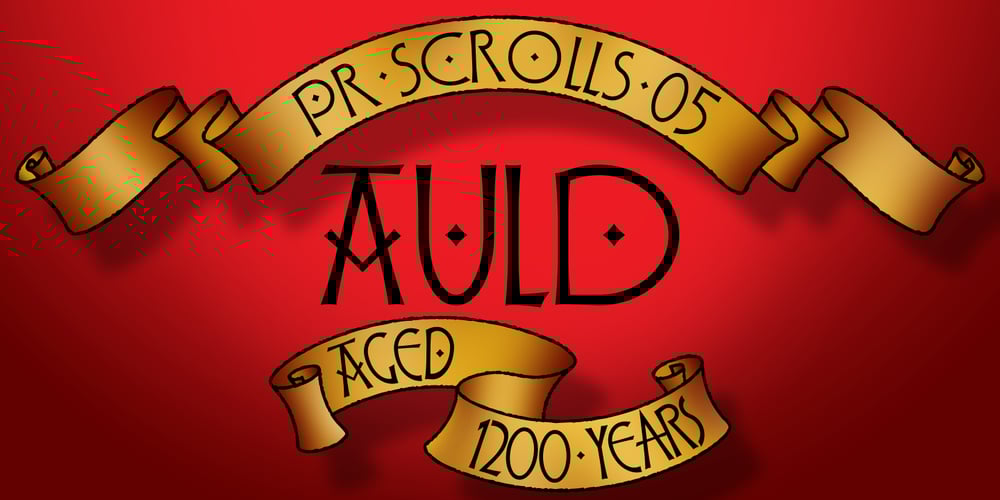
PR Scrolls 05
PR Scrolls 05 font
PR Scrolls 05 Font Family was designed by Peter Rempel and published by PR Fonts. PR Scrolls 05 contains 2 styles and family package options. Inspired by food labels, signs and coats of arms, PR Scrolls is a collection of images which can be used for framing text in contexts where antiquity, craftsmanship, or traditional quality are conveyed. Most of the glyphs are presented in a range of four or more widths.